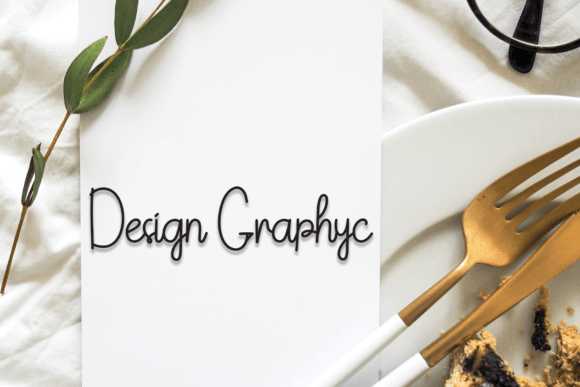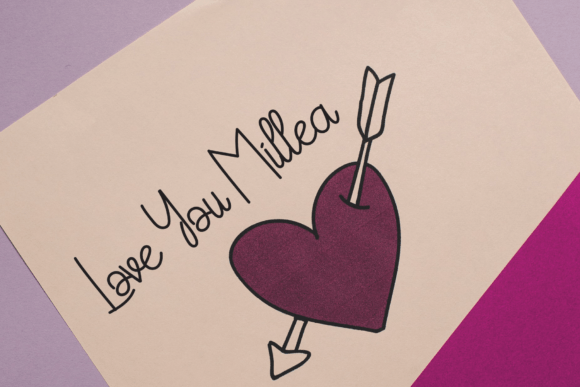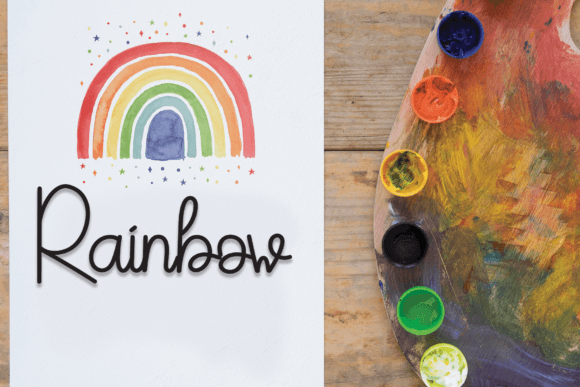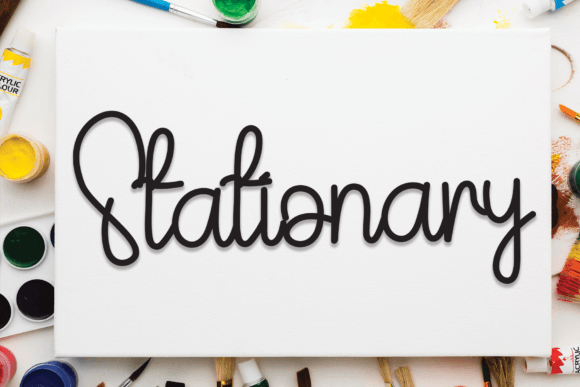
Introduction to Night Santaclaus Font
Night Santaclaus is a simple and friendly handwritten font.
Whether youโre using it for crafts, digital design, presentations, or creating greeting cards, this font has the potential to become your go-to font, whatever the occasion .
Key Features of Night Santaclaus Font
Why Choose Night Santaclaus Font?
Night Santaclaus Font offers exceptional quality and versatility, making it a valuable addition to your design toolkit. Whether you’re creating for personal projects or commercial use, Night Santaclaus Font delivers professional results.